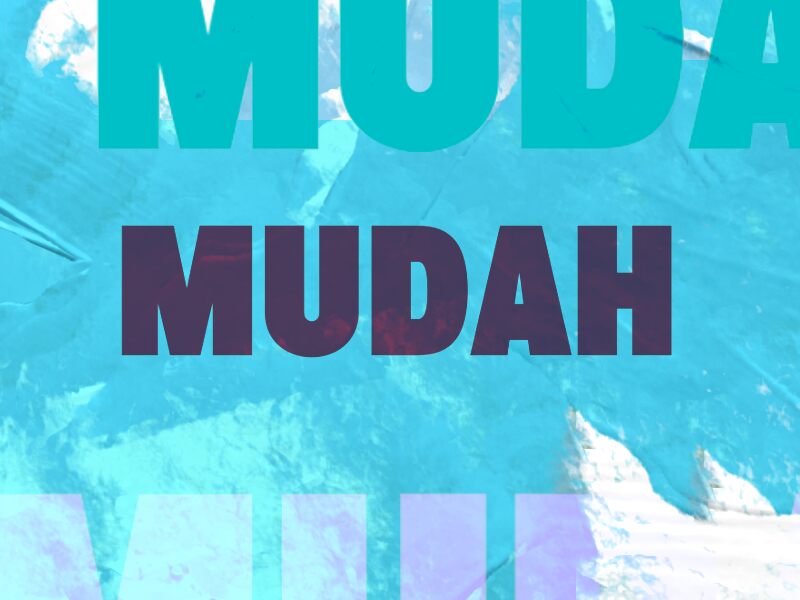
M Mudah font is a contemporary sans serif font from wep, designed with versatility in mind. Its sleek and modern look offers an impactful and assertive presence, making it suitable for various creative projects. This free font stands out with its clean lines and contemporary appeal, embodying a strong presence that can elevate both digital and print applications.
Use this sans serif in the branding of a fashion and clothing line, a personal blog website, a personality magazine, or a series of video games. Page headers and sub-headers in books, newspaper article titles, newsletters, and flyers can reap the benefits of the font. Feel free to try it in headings and main titles of web and mobile applications, as well as a distinctive logo design, all with the option to combine it with a legible body text font.
Mudah is a stylish and elegant free font designed for various creative projects. Its modern aesthetic makes it perfect for both digital and print mediums. Whether you are working on a website, branding materials, or personal invitations, this font can add a touch of sophistication to your designs.
Mudah features clean lines and a versatile style, making it suitable for headlines, logos, and body text. The font's readability and unique character set it apart, ensuring that your projects make a lasting impression.